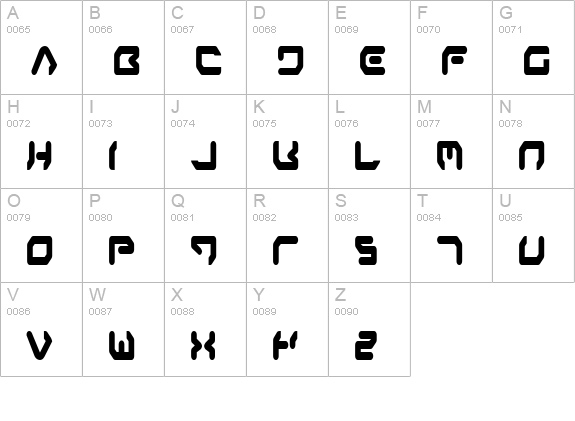
Airstrip One Condensed Font Details
Airstrip One Condensed is a distinctive, condensed-width variant in the Airstrip typeface family \xE2\x80\x94 well suited to design and typography projects.
Airstrip One Condensed font is a sleek and modern typeface that exudes sophistication and elegance. With its clean lines and compact design, this font is perfect for adding a touch of professionalism to any project. Whether you need to create eye-catching headlines or elegant body text, Airstrip One Condensed has got you covered. What sets this font apart is not only its stylish appearance but also the fact that it is available for free download at FontsMarket.com. Yes, you read that right - you can get your hands on this stunning font without spending a dime. So why wait? Elevate your designs with Airstrip One Condensed and make a bold statement today.